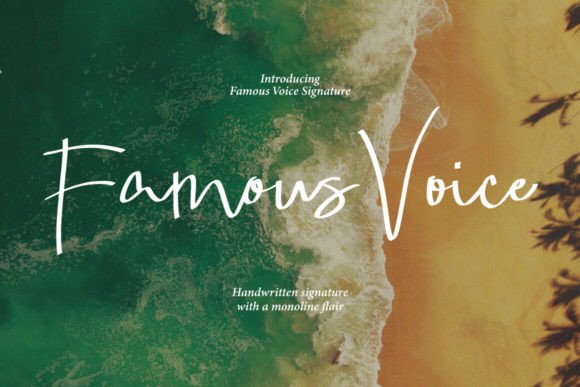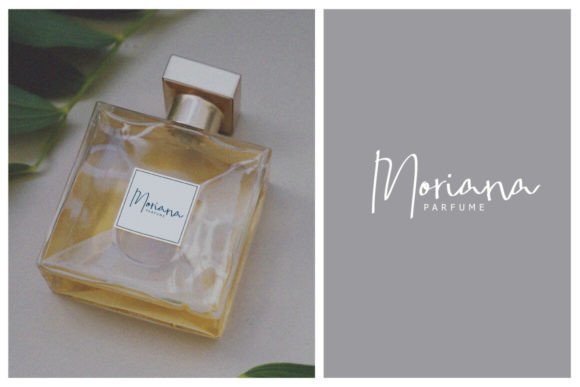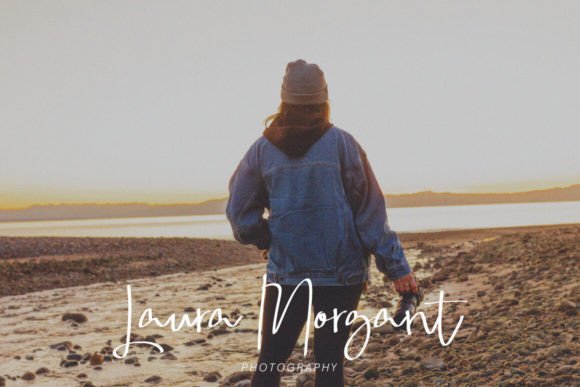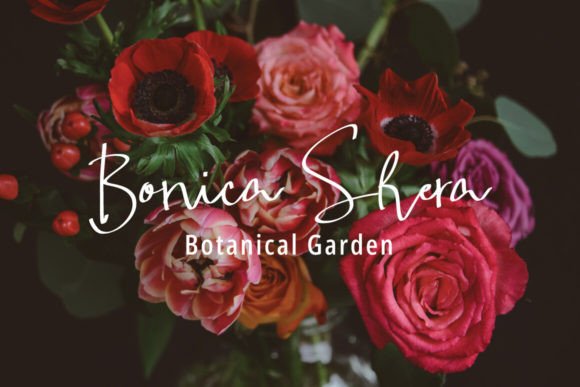
Famous Voice Font: Elegant Signature Font for Modern Branding
About the Famous Voice Font
Discover the charm of Famous Voice Font. This font is a perfect blend of modern aesthetics and classic appeal. Famous Voice is a stylish signature font with a smooth, single-line design. Its sleek and elegant strokes make it perfect for personal signatures, logos, or classy invitations. The monoline flair adds a modern, clean touch to your text, making it both simple and sophisticated.
Its elegant simplicity makes Famous Voice ideal for branding projects requiring a touch of sophistication, particularly logos, short headlines, and upscale packaging. It also works well on invitations and short, impactful marketing materials. However, its thin strokes and monoline structure make it less suitable for body text or long paragraphs where readability is paramount. Avoid using it in user interfaces (UI) or situations requiring small point sizes.
For optimal visual harmony, pair Famous Voice with a complementary sans-serif font like Open Sans for body text, providing strong readability contrast. Alternatively, a classic serif such as Garamond can add a touch of timeless elegance, while a geometric sans-serif like Montserrat offers a modern, balanced contrast.
Famous Voice projects an air of refined modernity and understated elegance. Its personality is sophisticated yet approachable, making it a versatile choice for brands aiming for a polished and memorable visual identity.
Famous Voice Font Usage Examples
Famous Voice Font Example